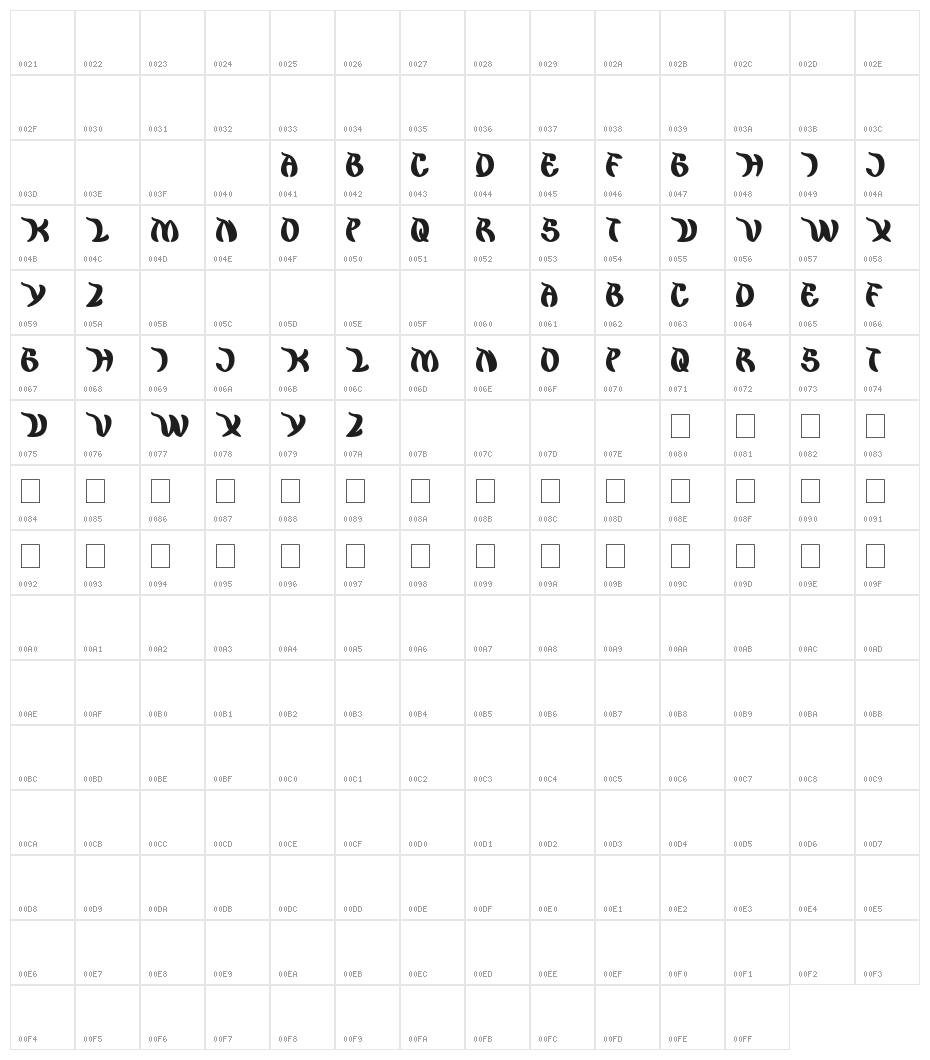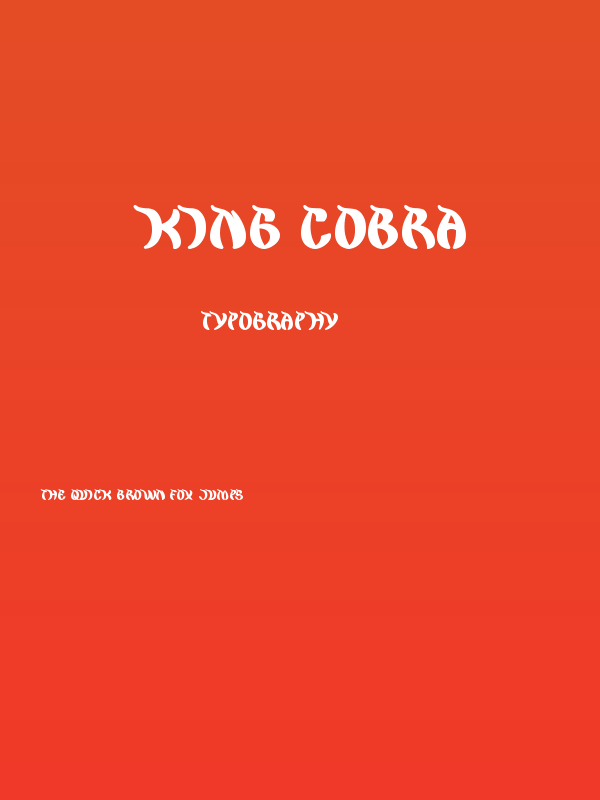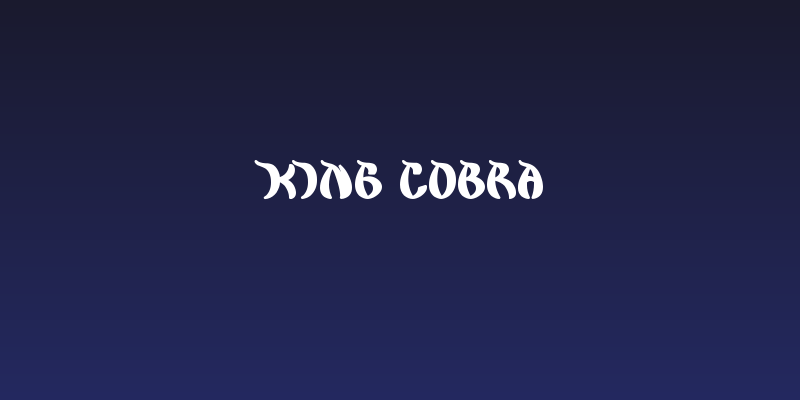
king cobra Font
king cobra Description
This font features a bold and dynamic style with a strong presence. The characters are designed with thick strokes and a slight slant, giving them a sense of movement and energy. The uppercase letters are particularly striking, with unique curves and angles that create a sense of drama and flair. The lowercase letters maintain the same boldness, ensuring consistency throughout the text. The numbers and special characters are equally bold, making them stand out in any design. This font is perfect for projects that require a strong visual impact and a touch of creativity.
KING-COBRA UPPERCASE
KING-COBRA LOWERCASE
KING-COBRA OTHER CHARS